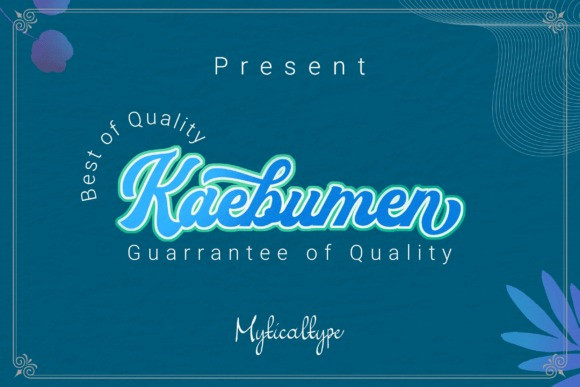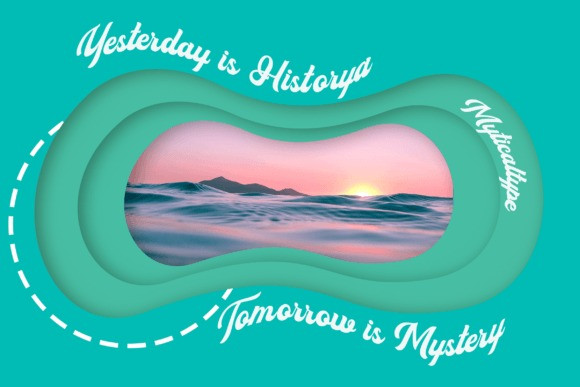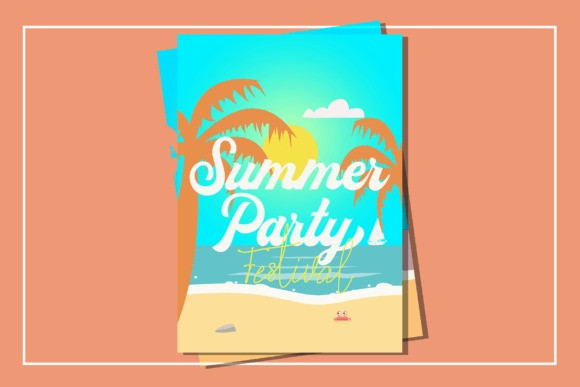
Kaebumen Font
Kaebumen Vintage Font feels equally charming and elegant. This stunning script font is a stylish homage to classic Calligraphy. It will elevate a wide range of design projects to the highest level, be it branding, headings, wedding designs, invitations, signatures, logos, labels, and much more!